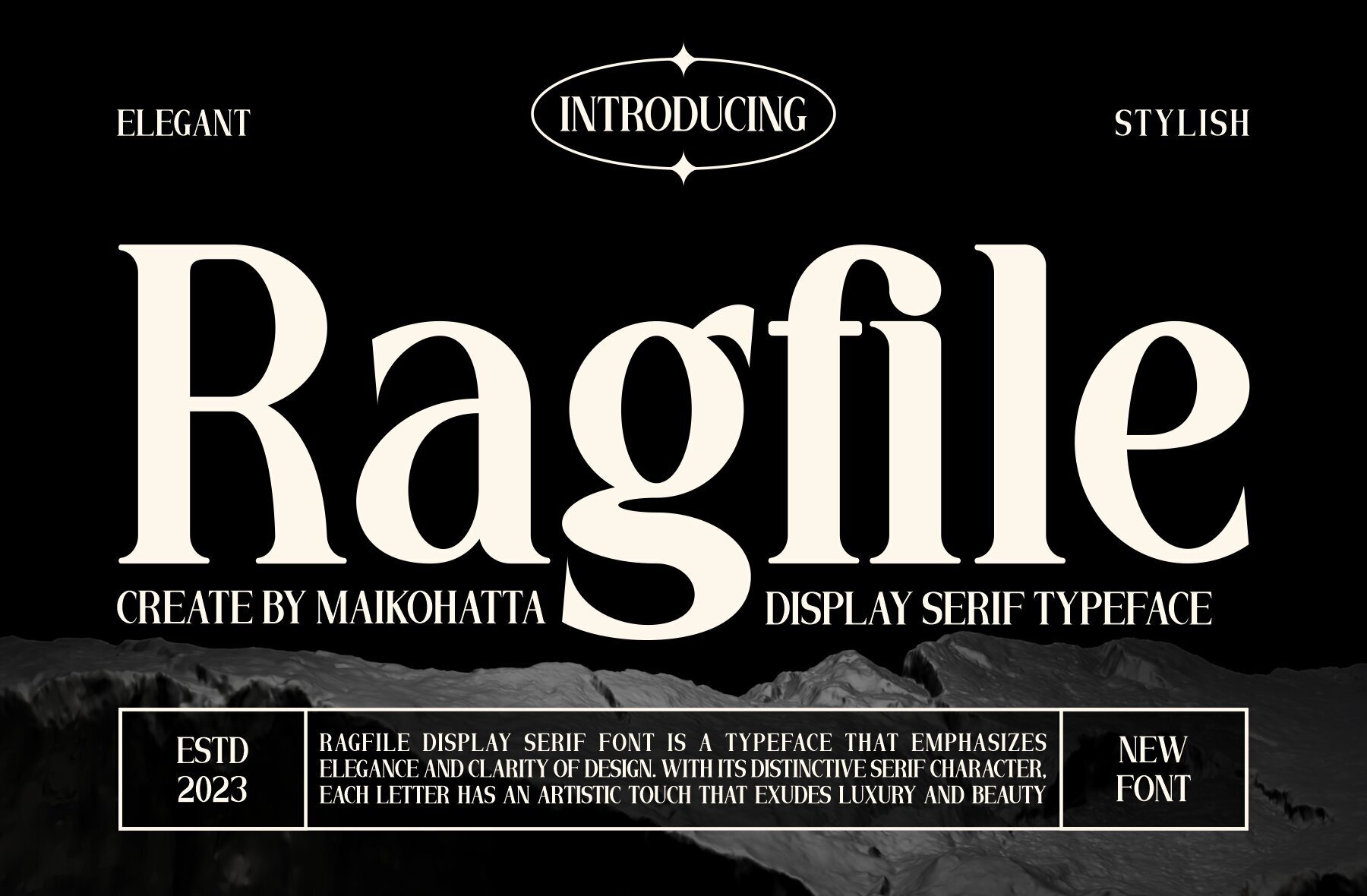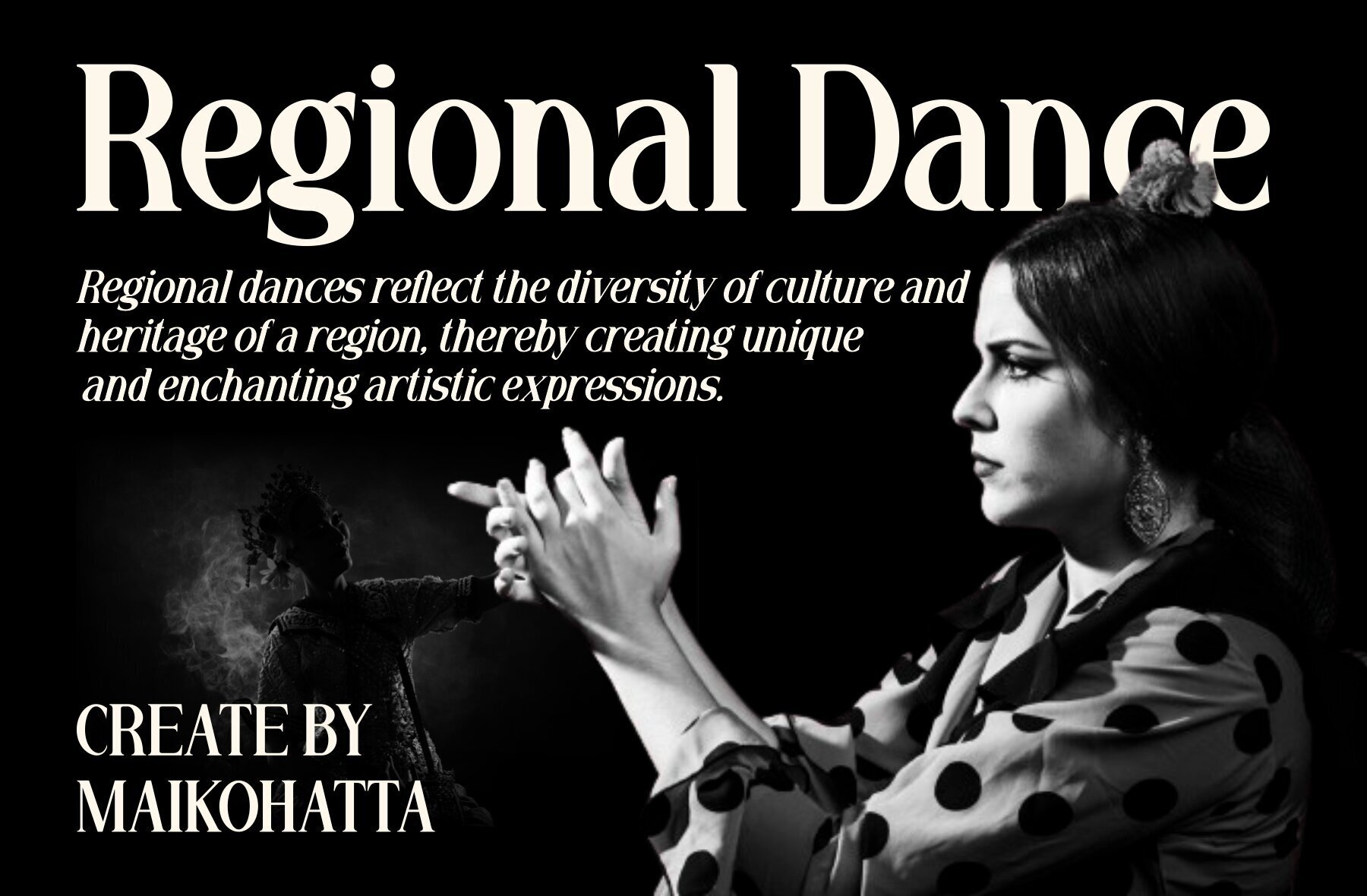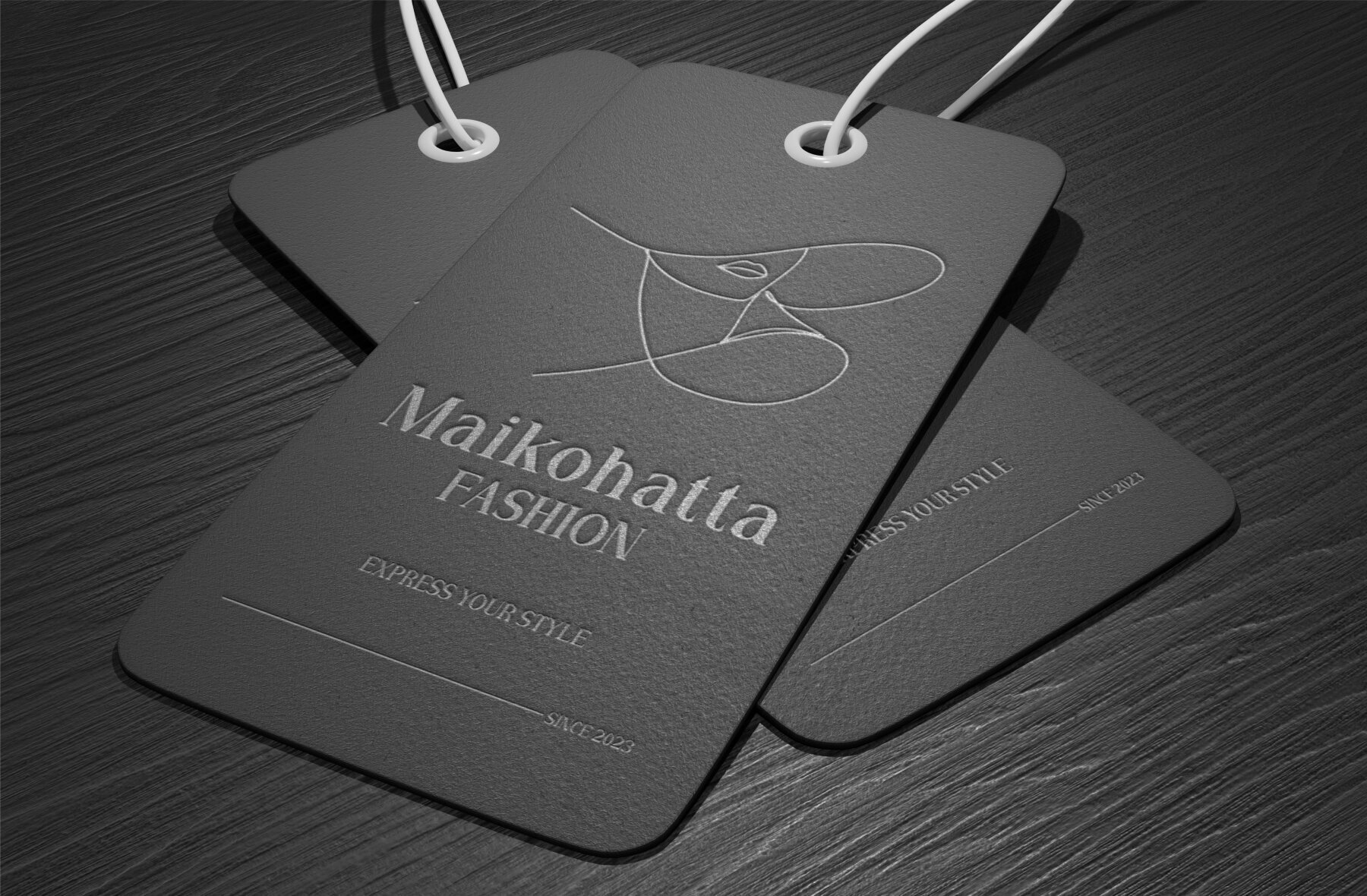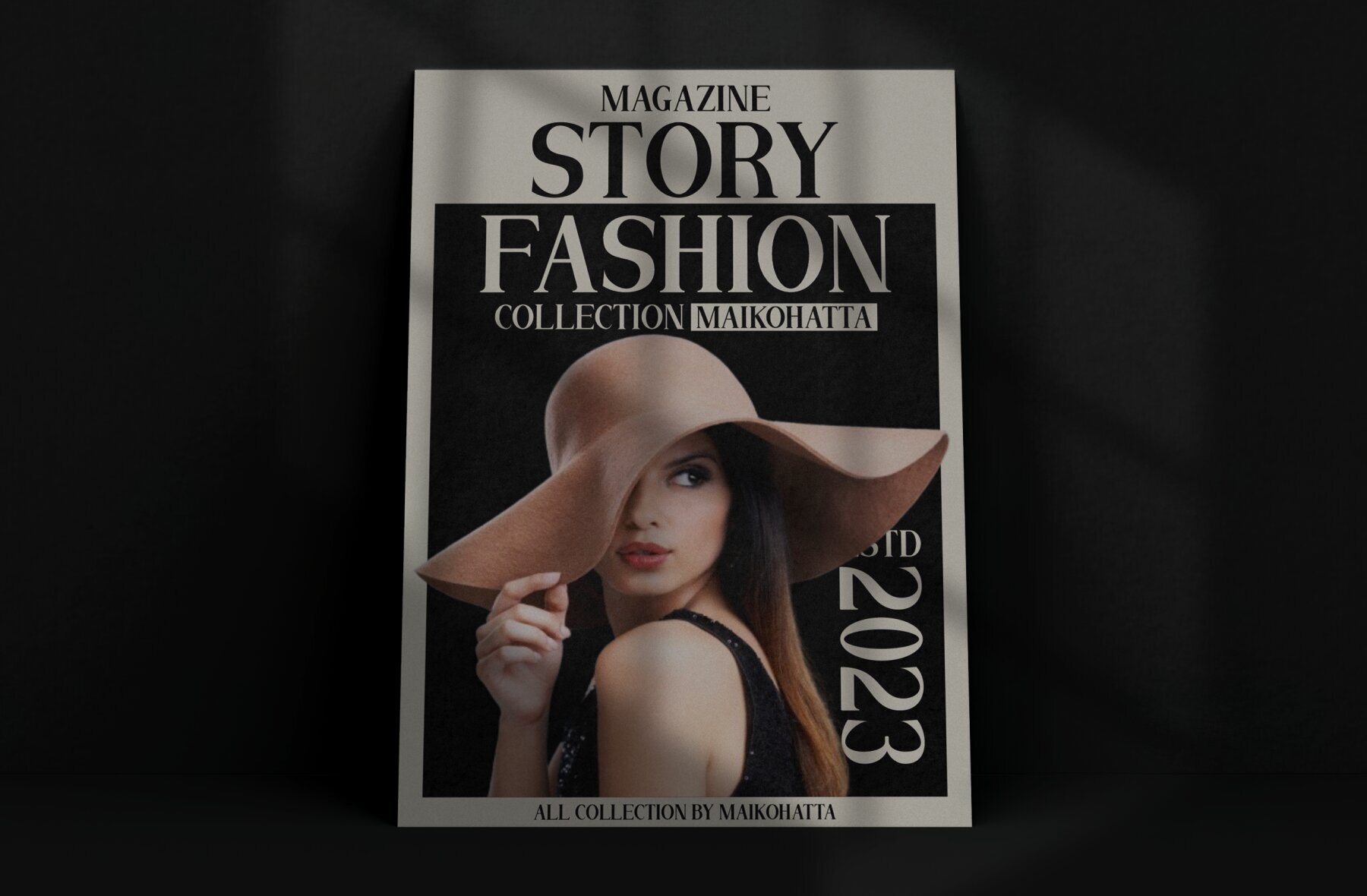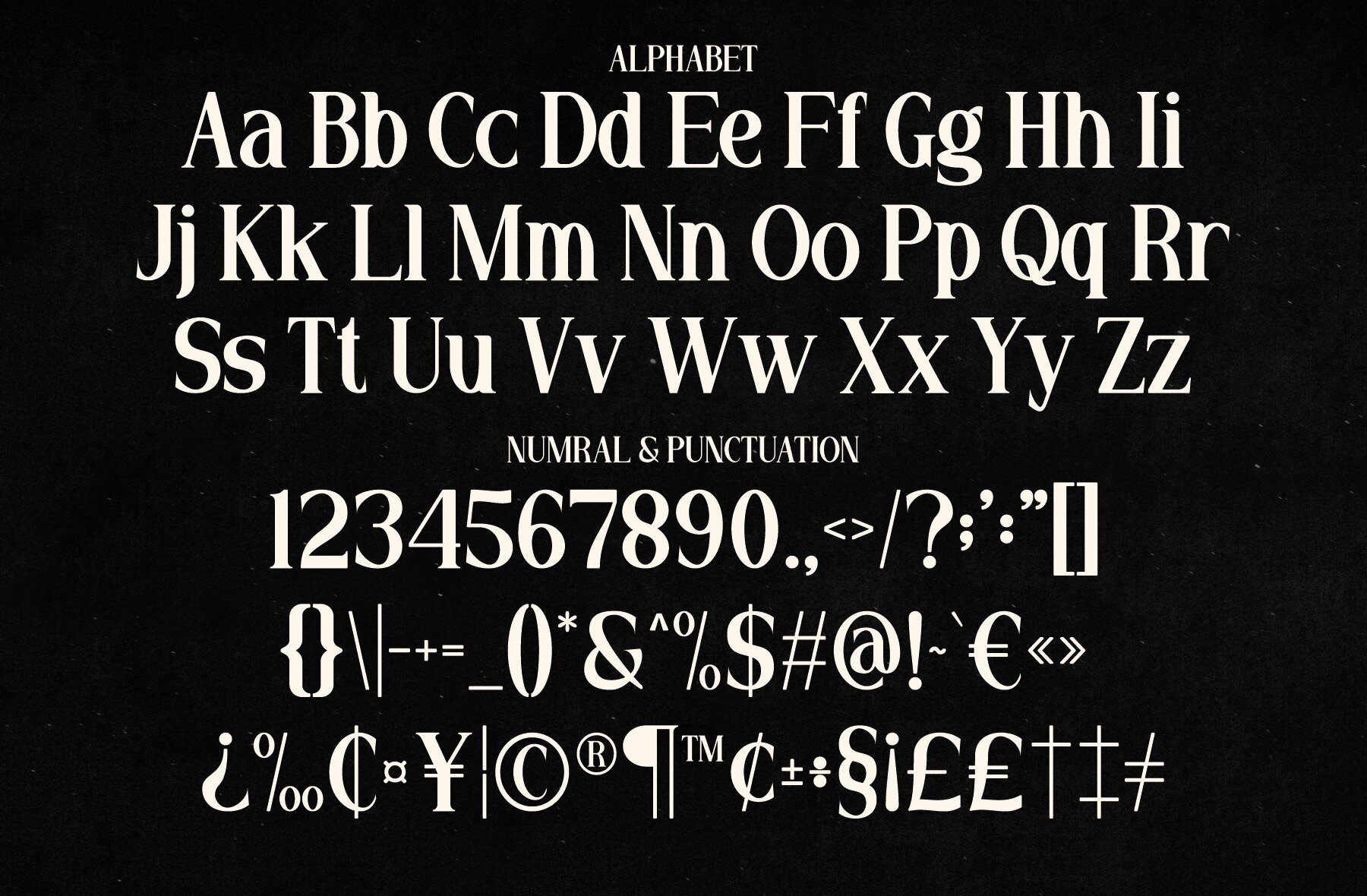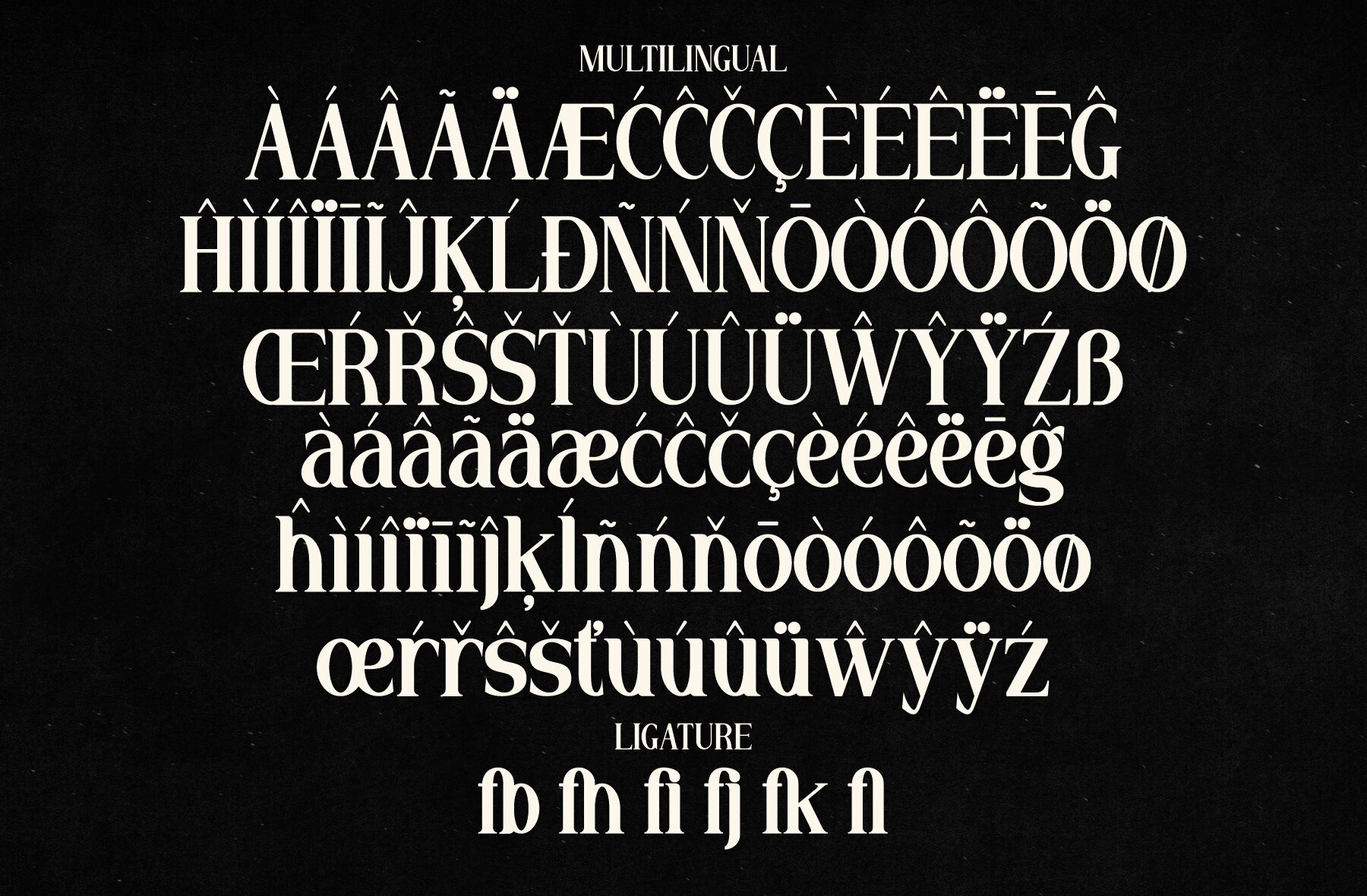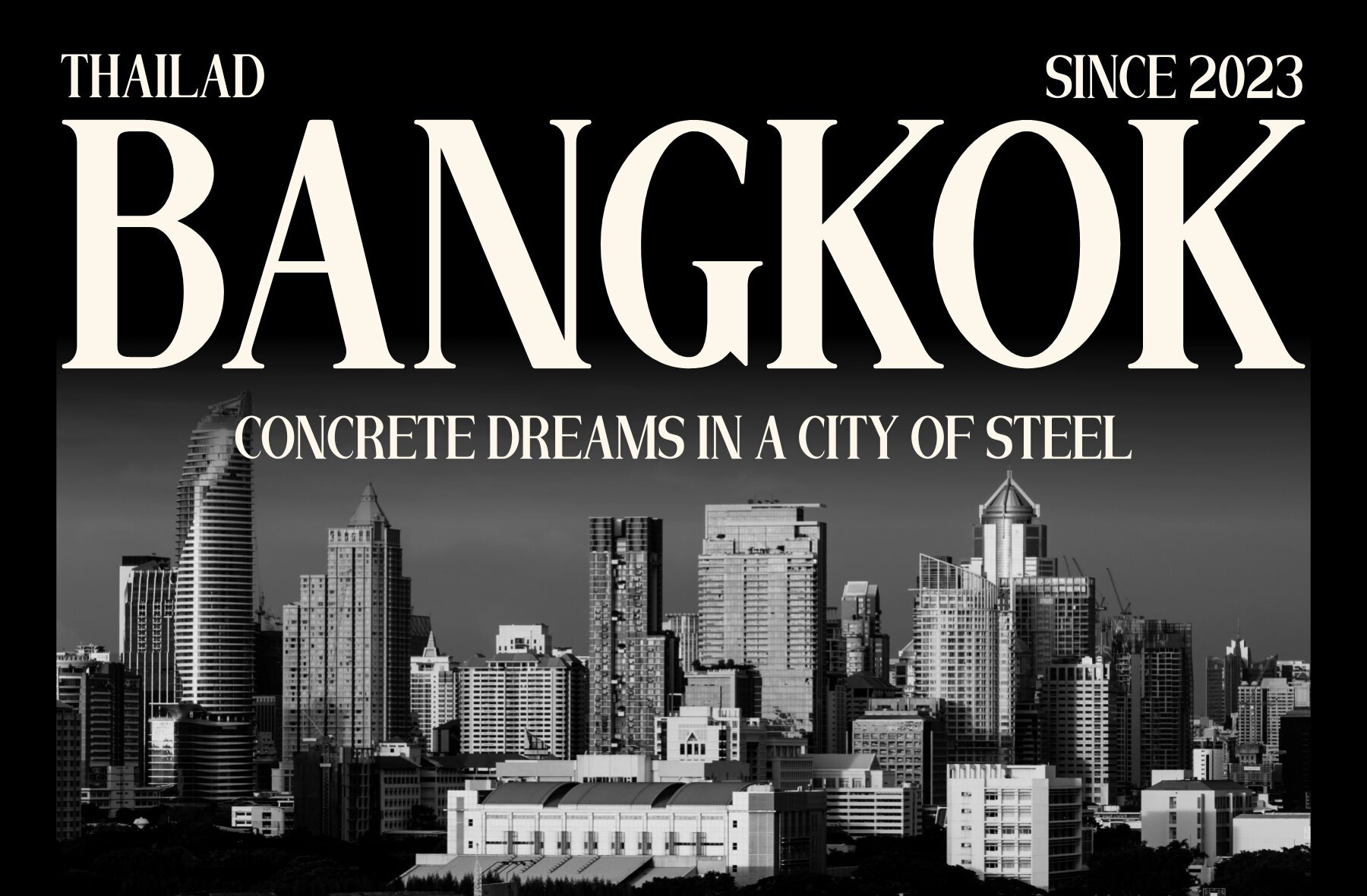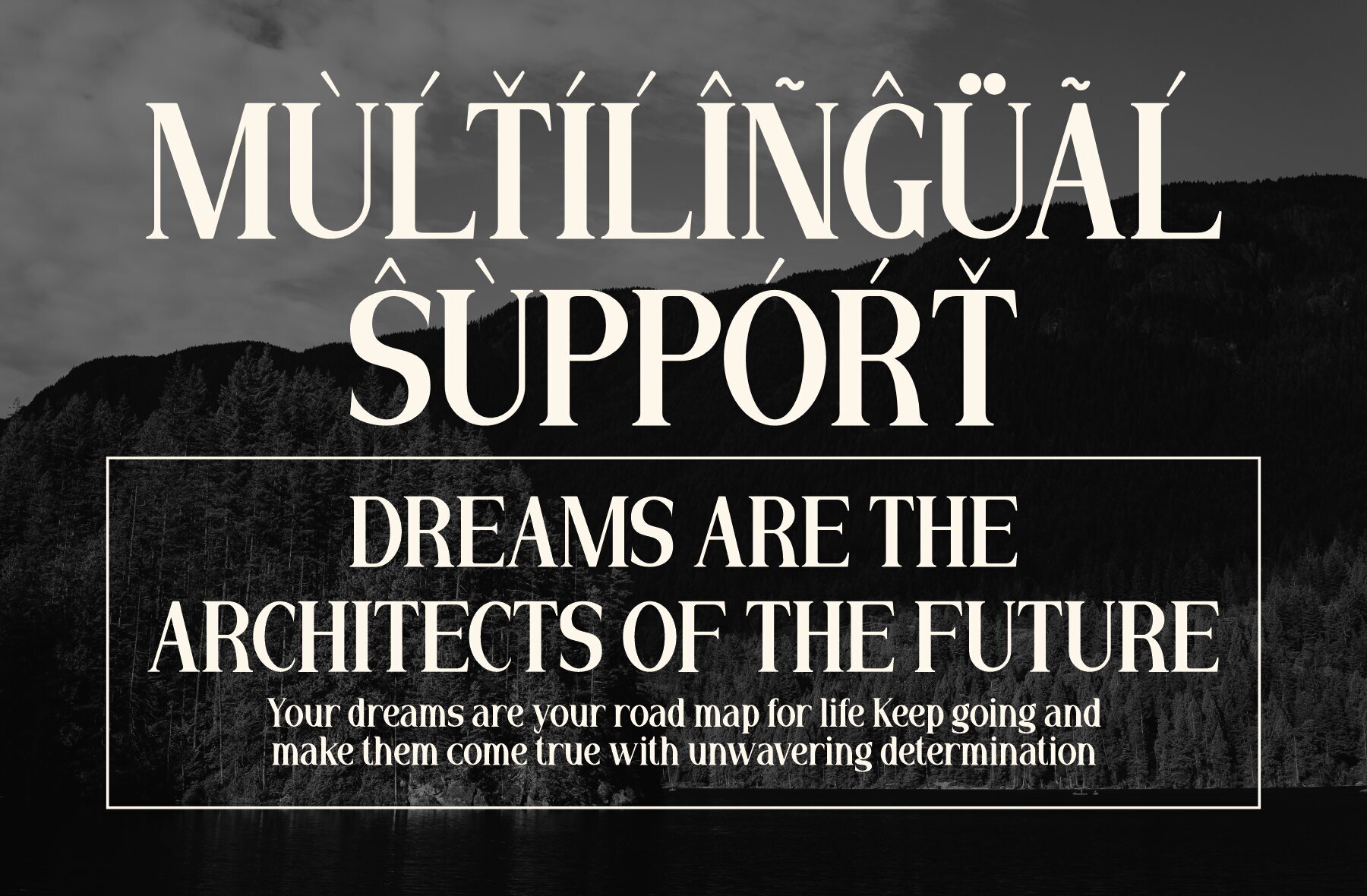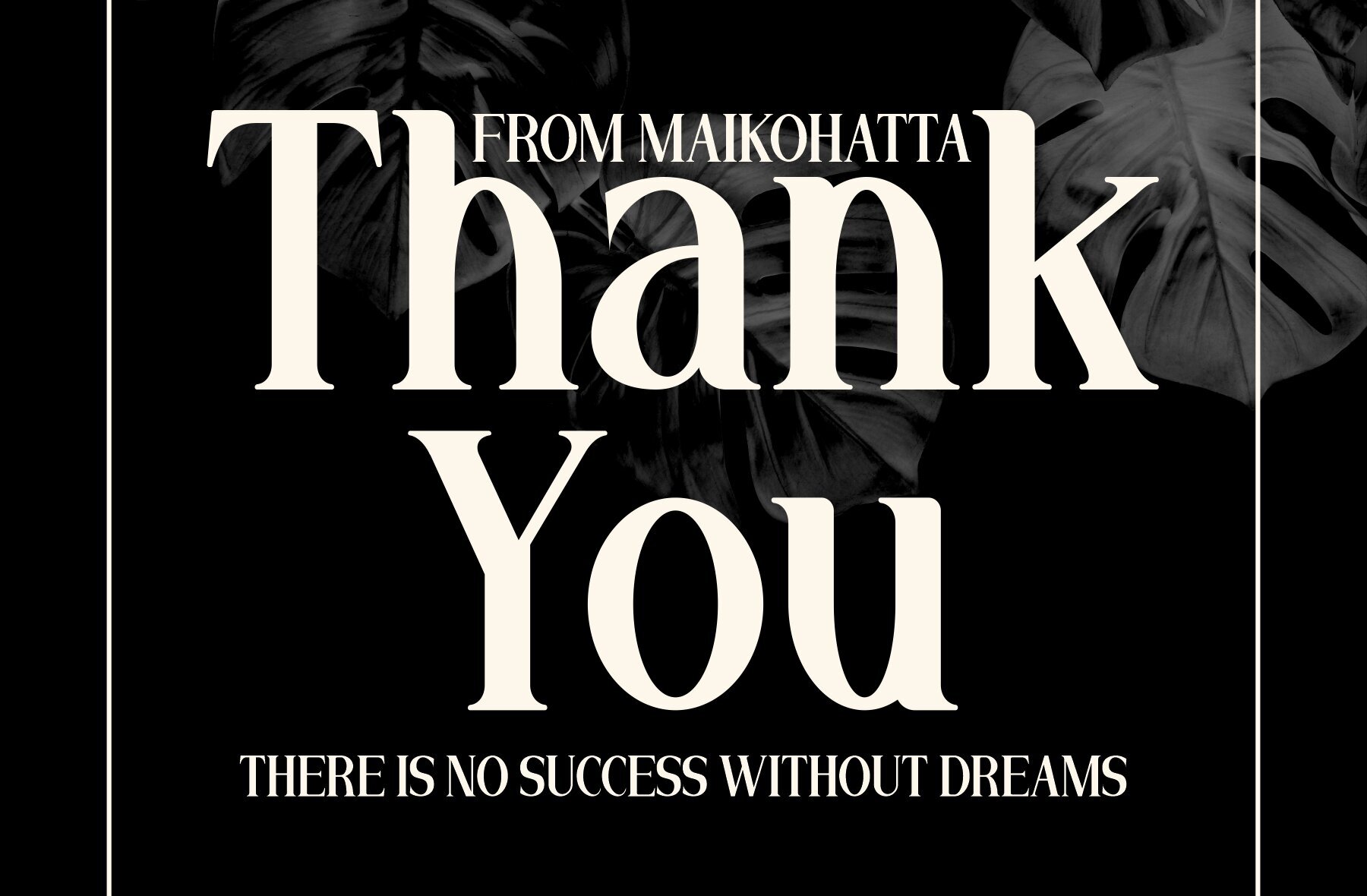
Ragfile Font
Ragfile Regular
Introducing Ragfile - Display Serif Typeface. This font is a typographic masterpiece that harmonizes elegance with sharpness. Each letter is meticulously designed, focusing on balanced proportions and impeccable alignment. Its sophisticated appearance makes it perfect for various contexts, including print design, promotional materials, and magazine layouts.
Featuring uppercase and lowercase letters, multilingual support, and ligature options, Ragfile is incredibly versatile. Whether you're working on a high-end design project or creating captivating promotional materials, this font ensures your text will stand out with a refined and polished look. Enhance your work with the timeless elegance of Ragfile.